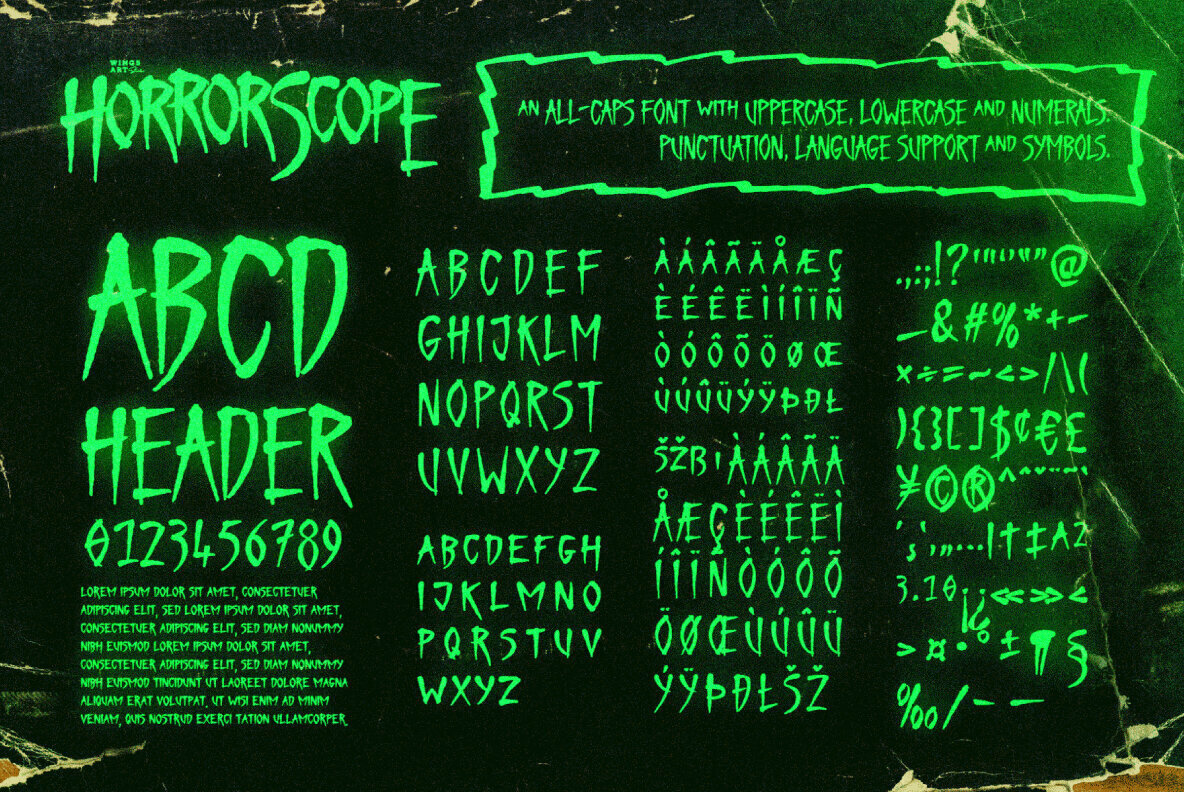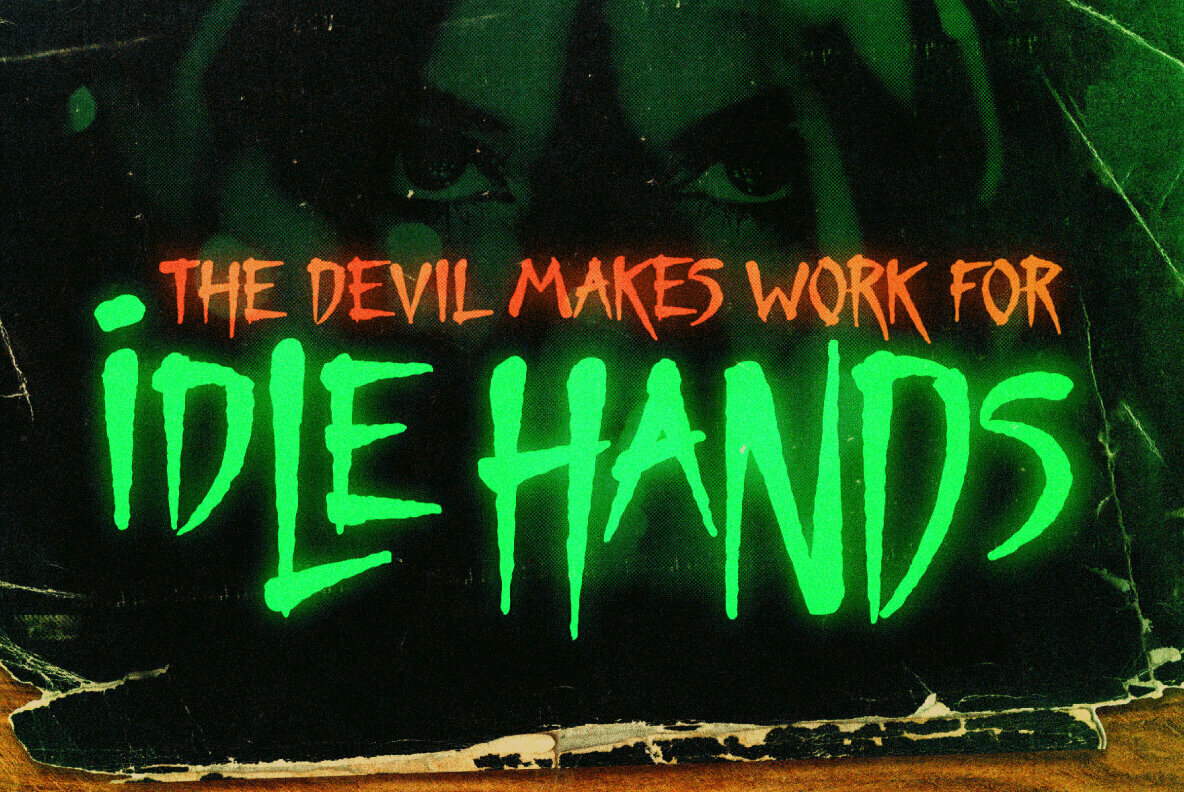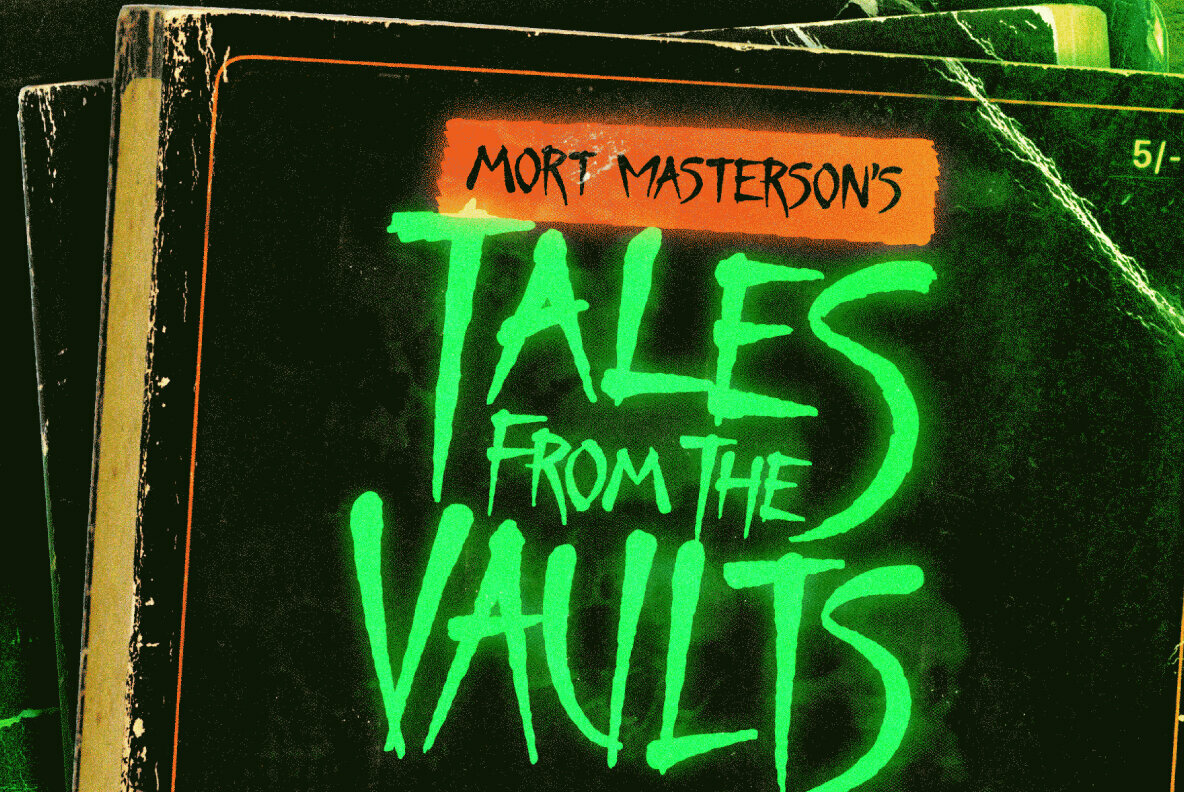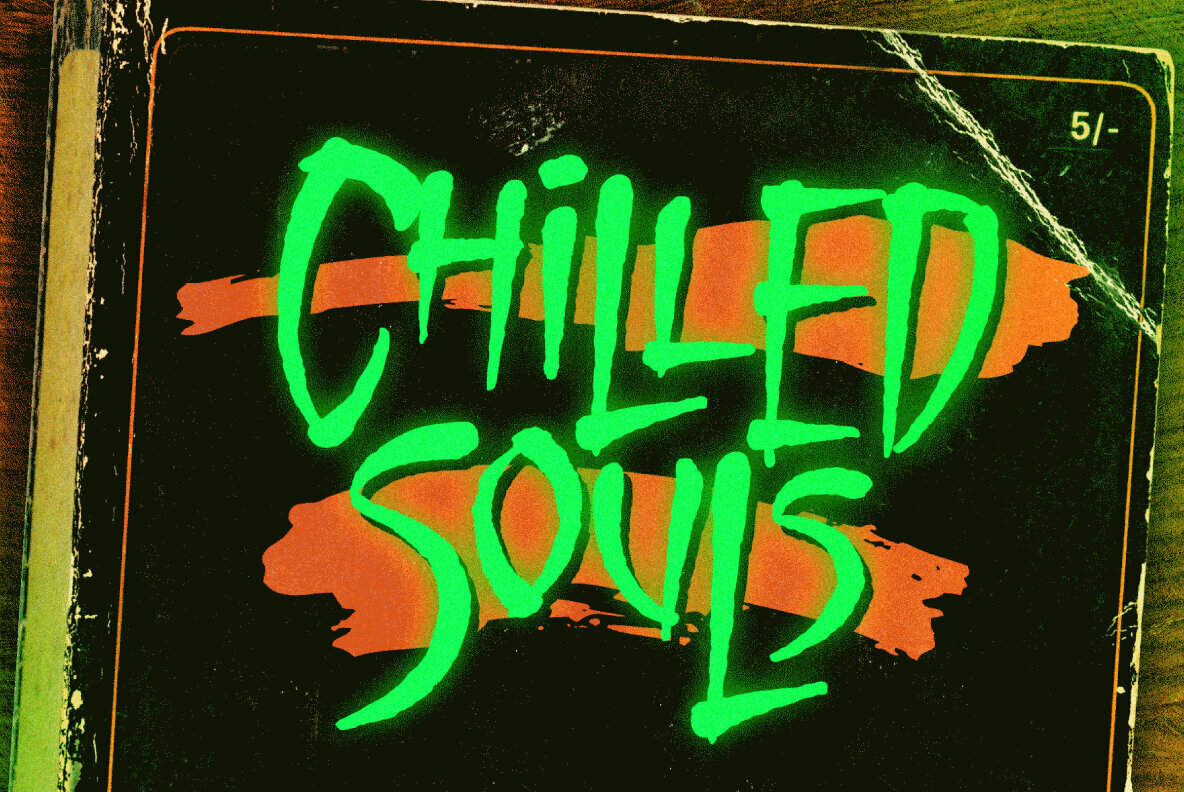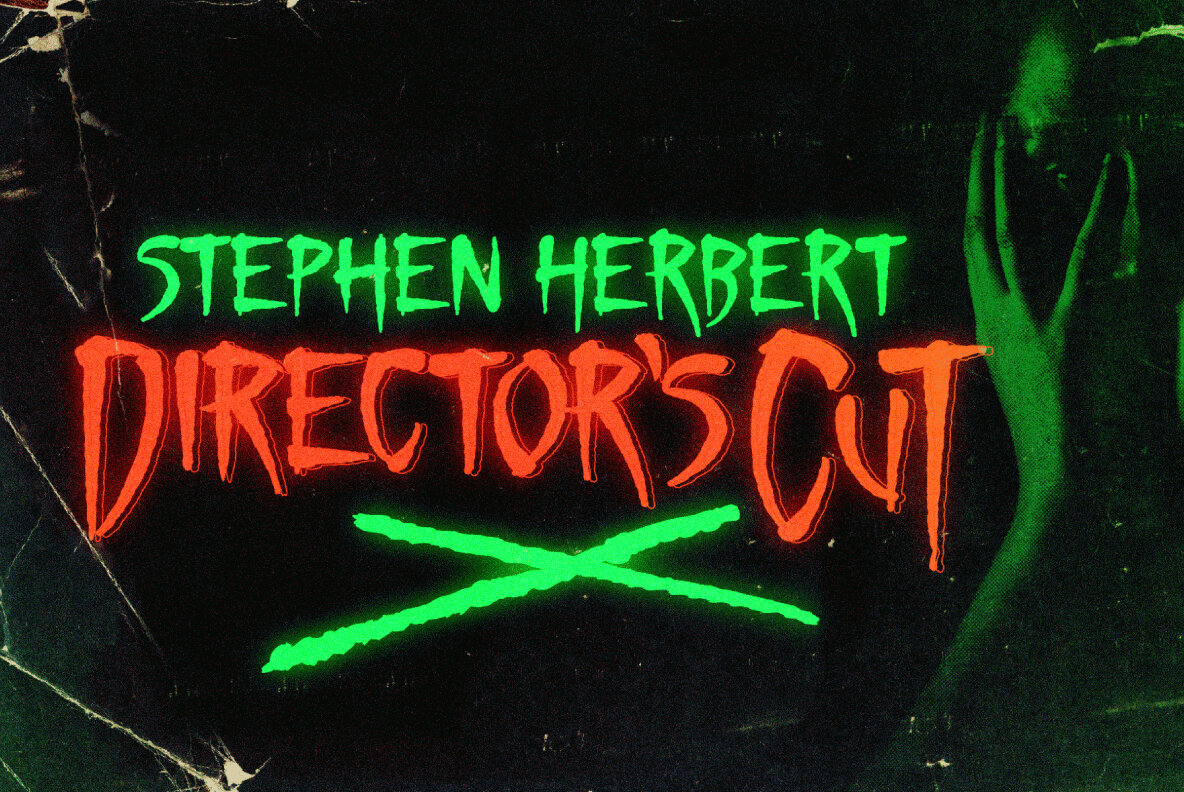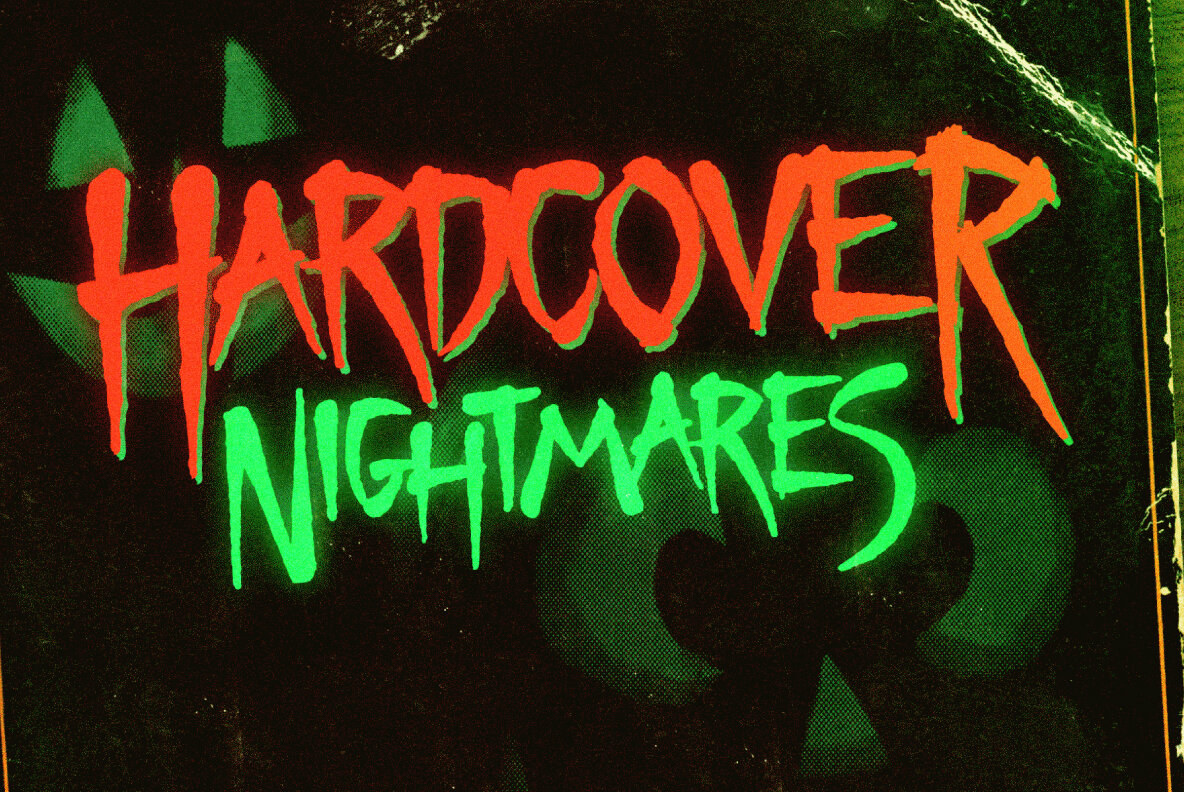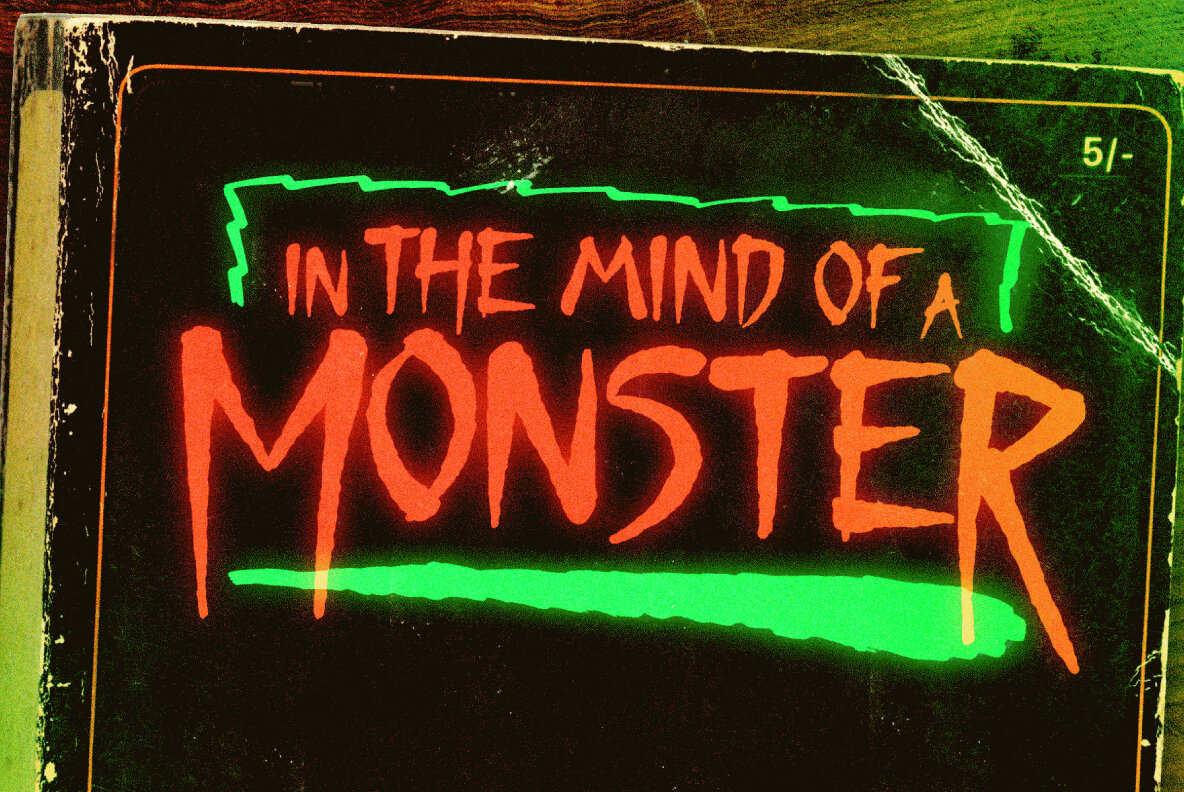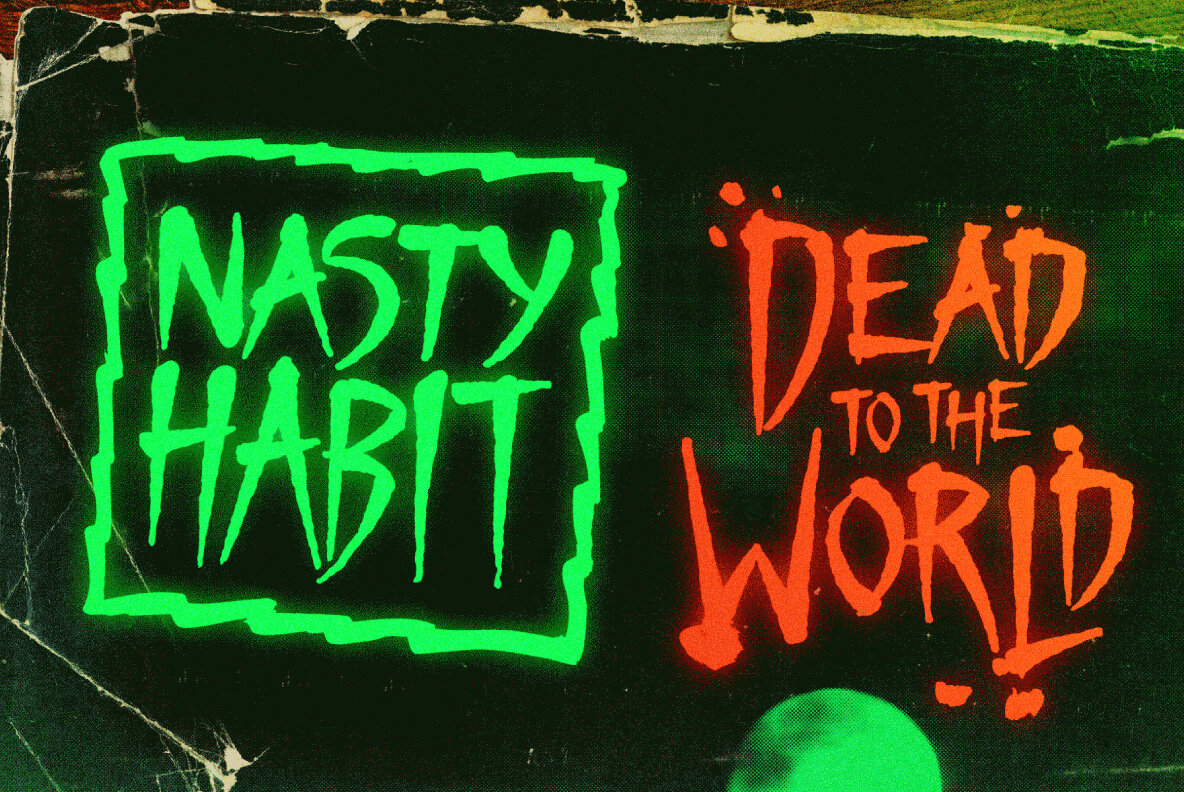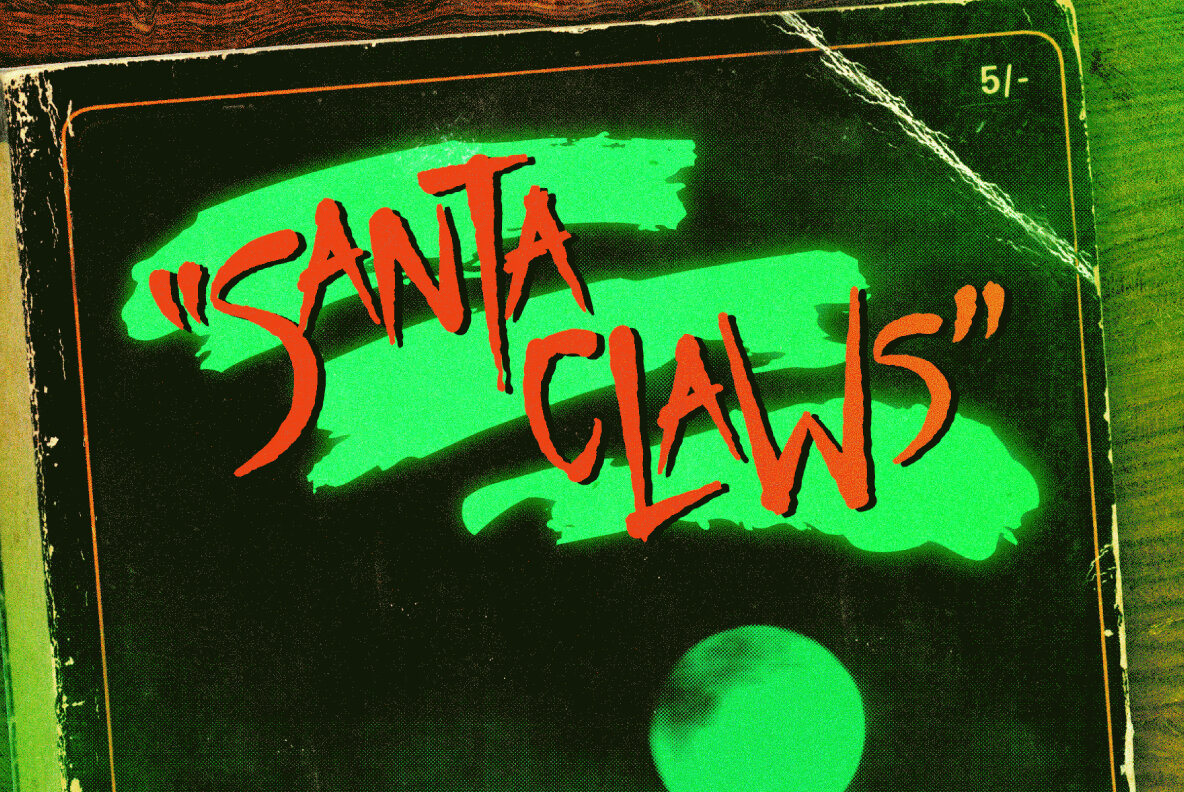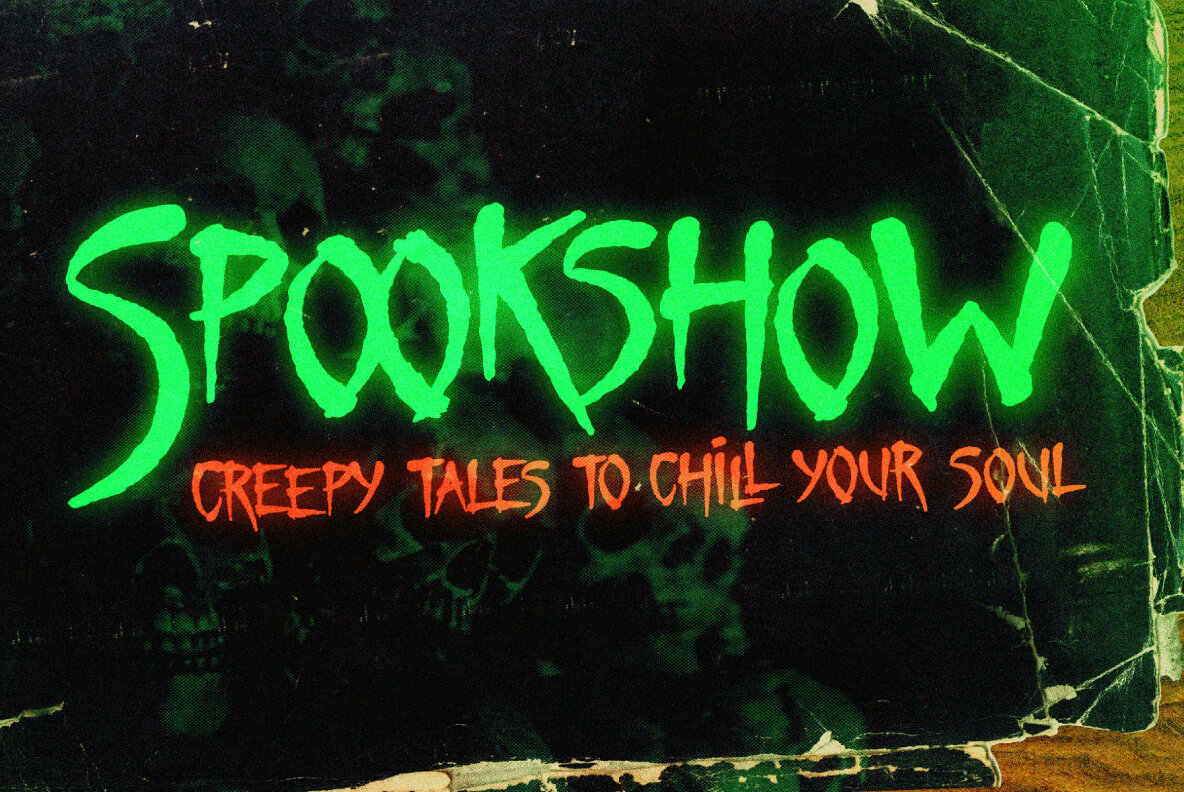
HorrorScope Font
This grungy hand-drawn typeface is inspired retro by horror novels and their garish cover designs that would delight and terrify readers in equal measure.
It’s an all-caps font with unique uppercase and lowercase characters, along with a complete set of alternatives so you can avoid repeating those o’s, e’s and t’s. It also includes punctuation, numerals and language support, plus a separate selection of underlines, comic book style boxes and ink splashes.
HorrorScope is a font that helps you achieve an authentic, hand-made look in titles and headers; perfect for book covers, movie titles, album covers, editorials and much more. Check out my usage examples for design ideas!